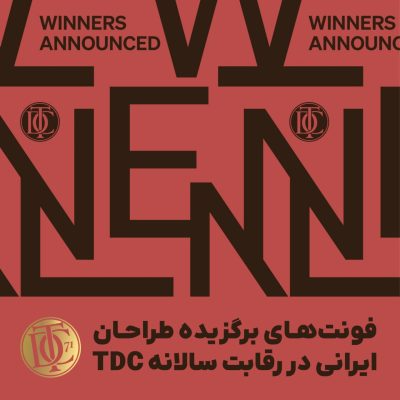
Capsule
The Capsule typeface, due to its unique personality and form, is best suited for short phrases, words, and combinations. It is not recommended for use in longer texts and sentences.
With over 15 years of experience in graphic design and typeface creation, he has designed several fonts, including Farhoud, Capsule, Ostad, and Melli.